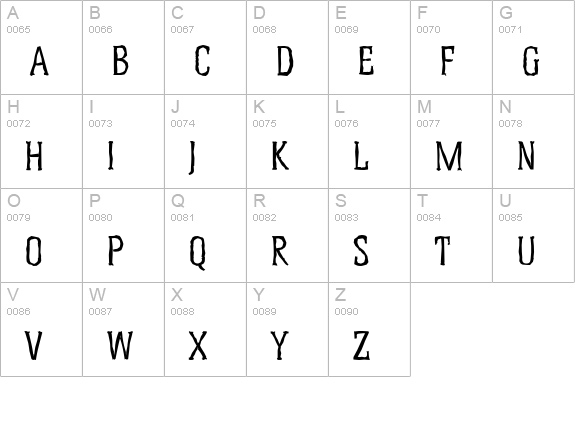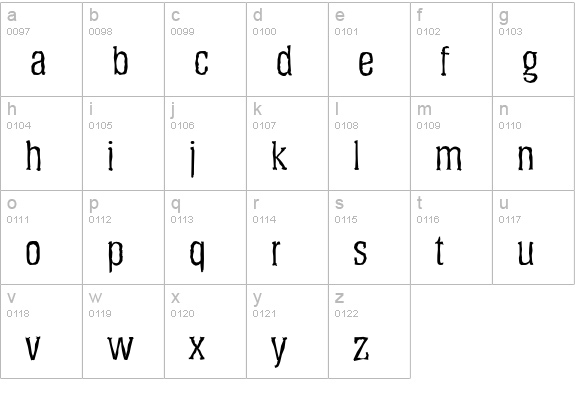
HeliumAntique-Regular is the standard, neutral variant in the HeliumAntique typeface family \xE2\x80\x94 well suited to general body text, paragraphs, and standard typographic work.
HeliumAntique-Regular is a timeless and elegant font that exudes sophistication and charm. With its delicate serifs and graceful letterforms, this typeface is perfect for adding a touch of class to any design project. The classic yet contemporary style of HeliumAntique-Regular makes it suitable for a wide range of applications, from invitations and business cards to branding and packaging. What makes HeliumAntique-Regular even more appealing is that it is available for free download at FontsMarket.com. This means that you can easily access and use this beautiful font in your creative projects without any cost. Don't miss out on the opportunity to enhance your designs with the refined beauty of HeliumAntique-Regular – download it for free today at FontsMarket.com!